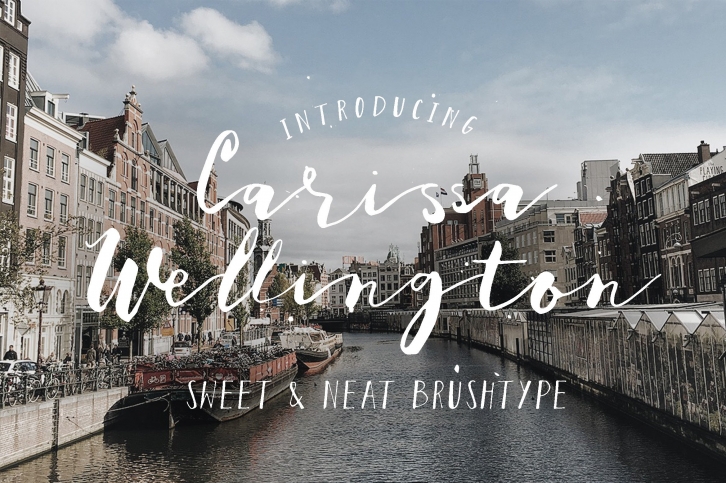
Carissa Wellington is a neat and feminine handwritten script font, created manually using brush pen. With a complete glyph available in the family, you can use Carissa Wellington to create greeting card title, signature for design work, badge and sticker, logo and return address, some cover design and so forth, you decide!
Carissa Wellington comes with complete accented glyphs for international languages and also, ligature feature that allows you to create different look to your design.
Carissa Wellington Features:
• Natural Brush Stroke
• Hand Drawn Font
• Unique Ligatures
• Accented Glyphs